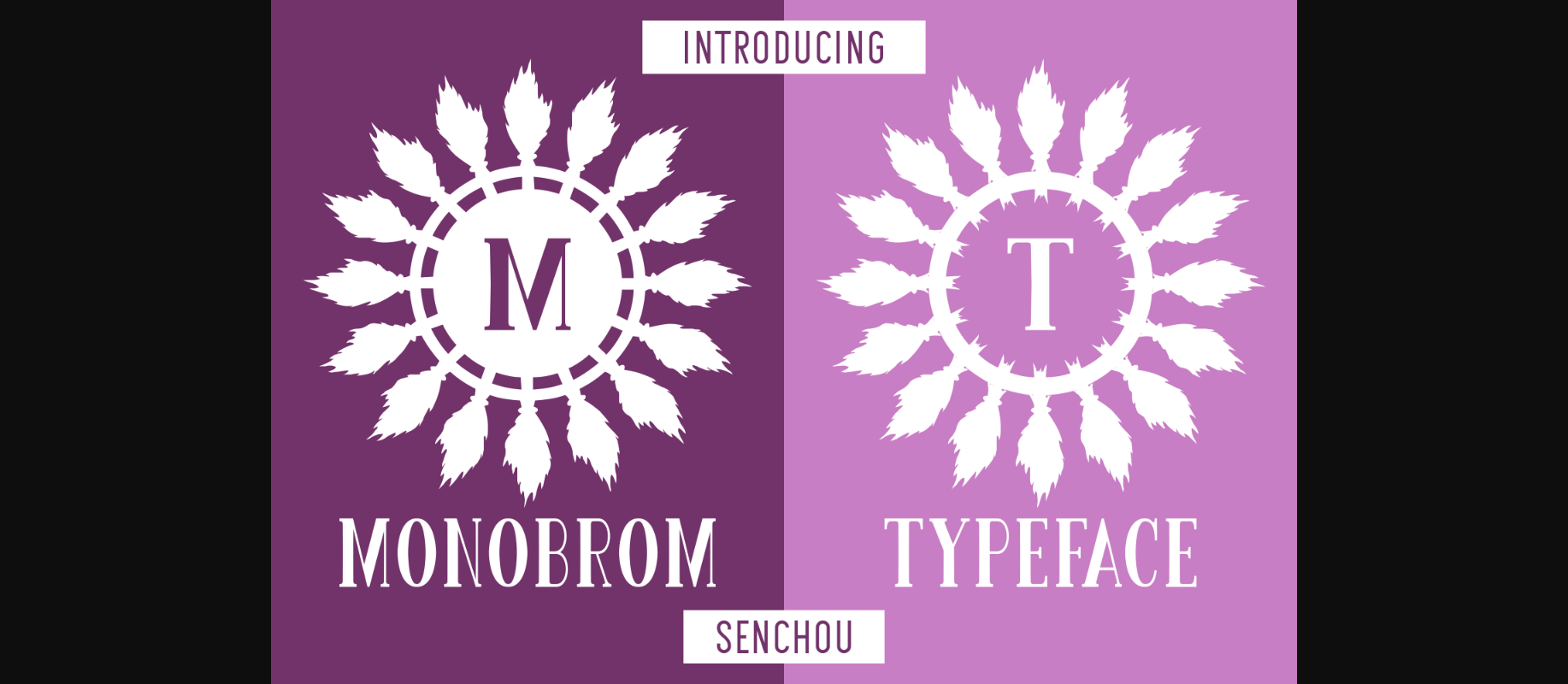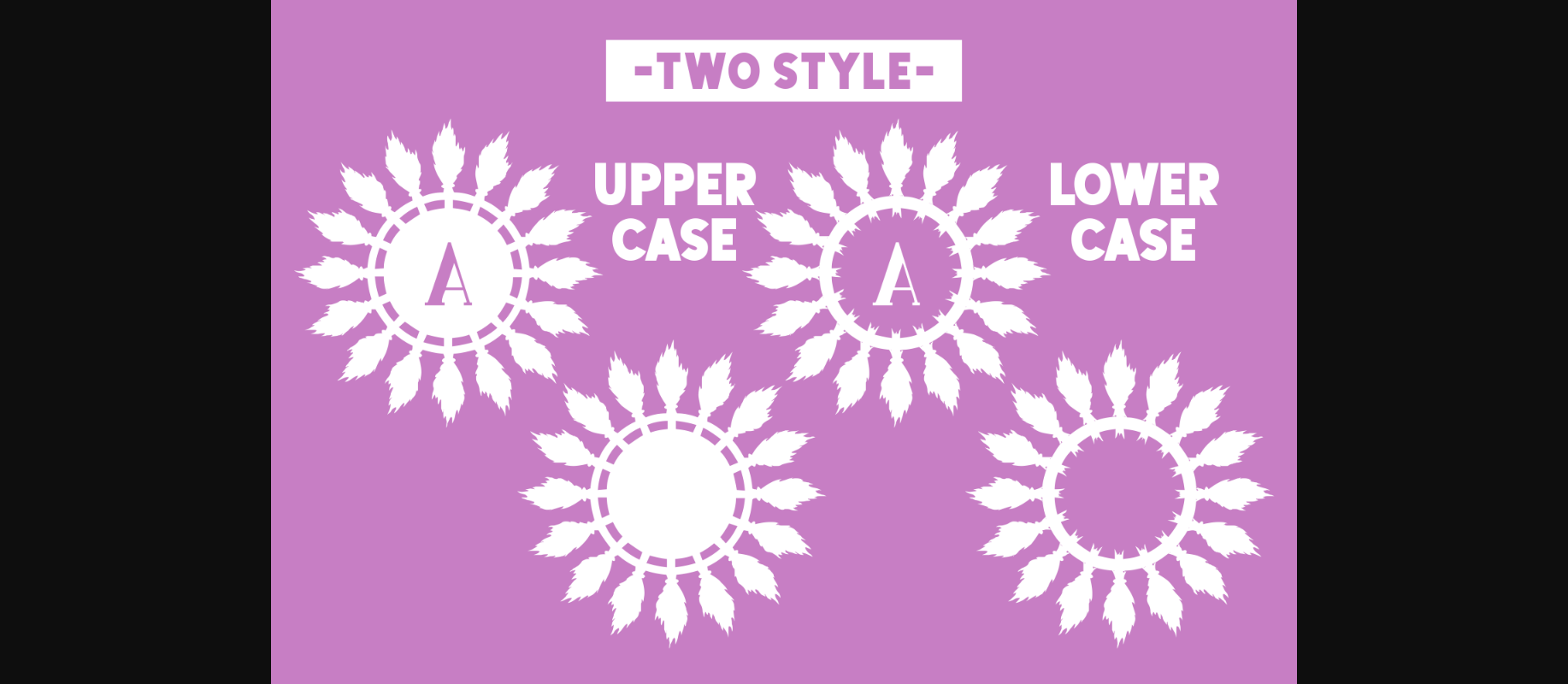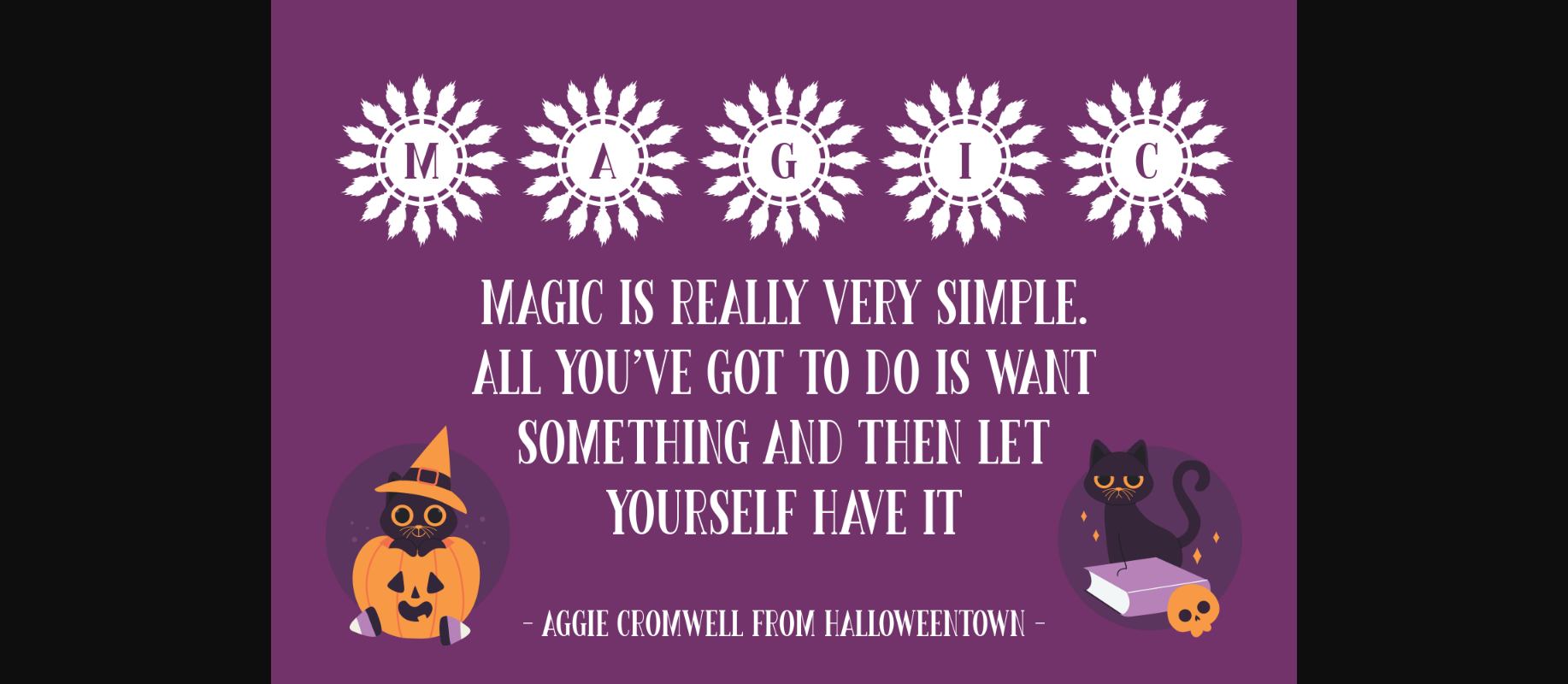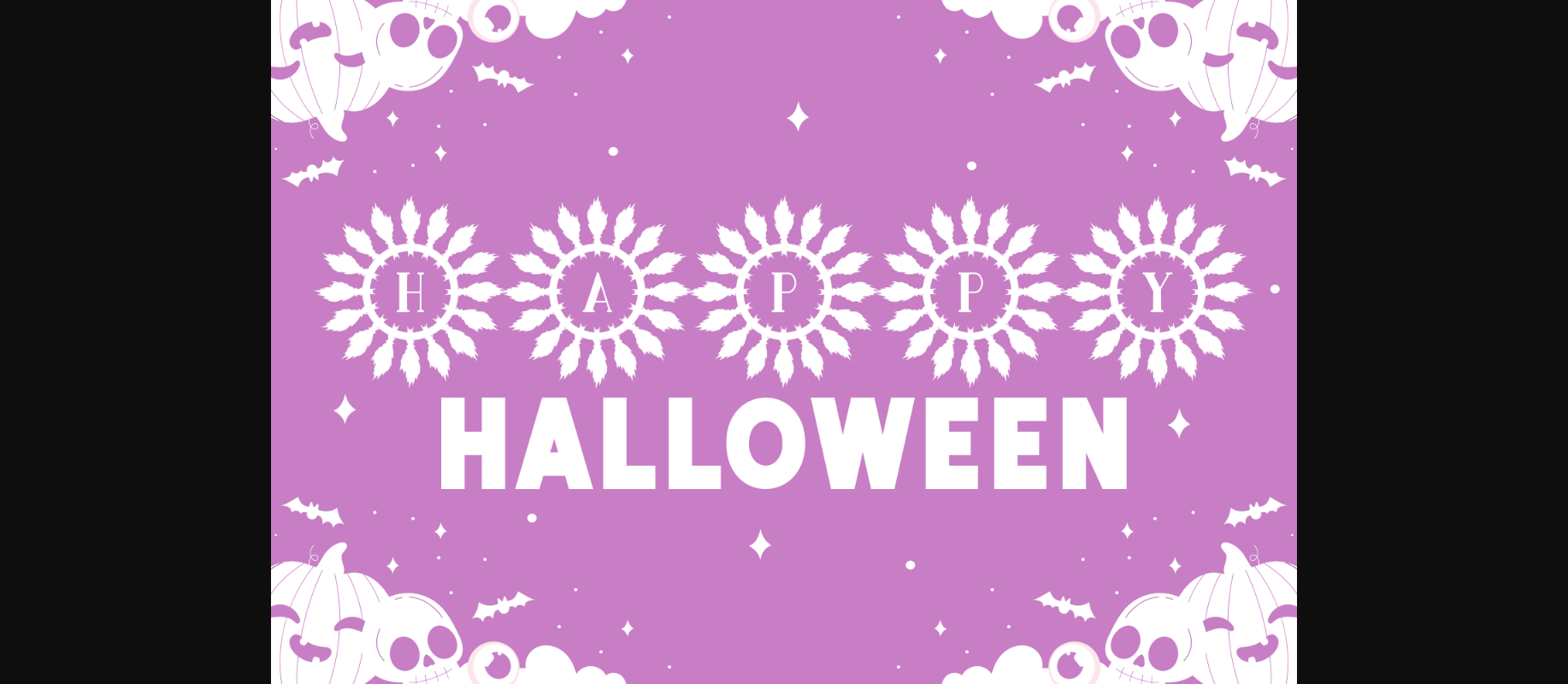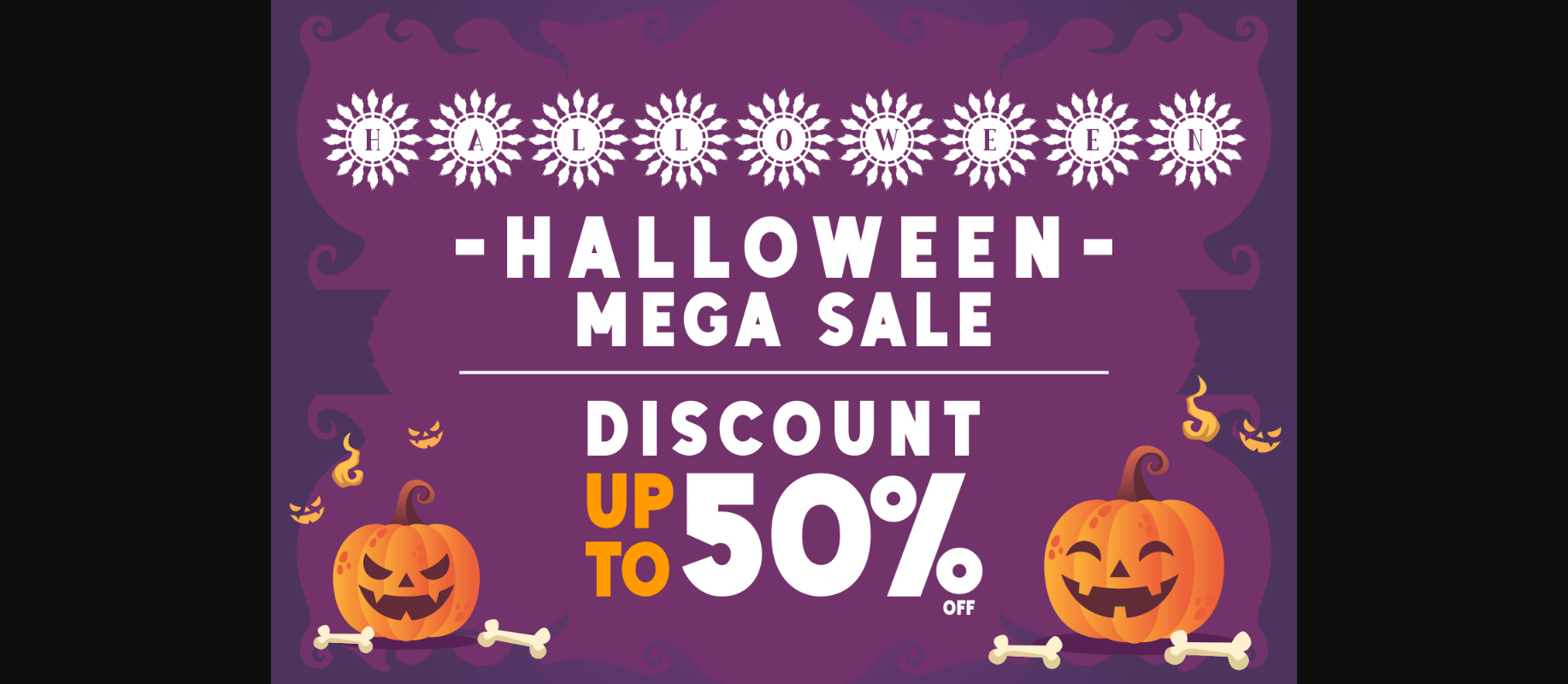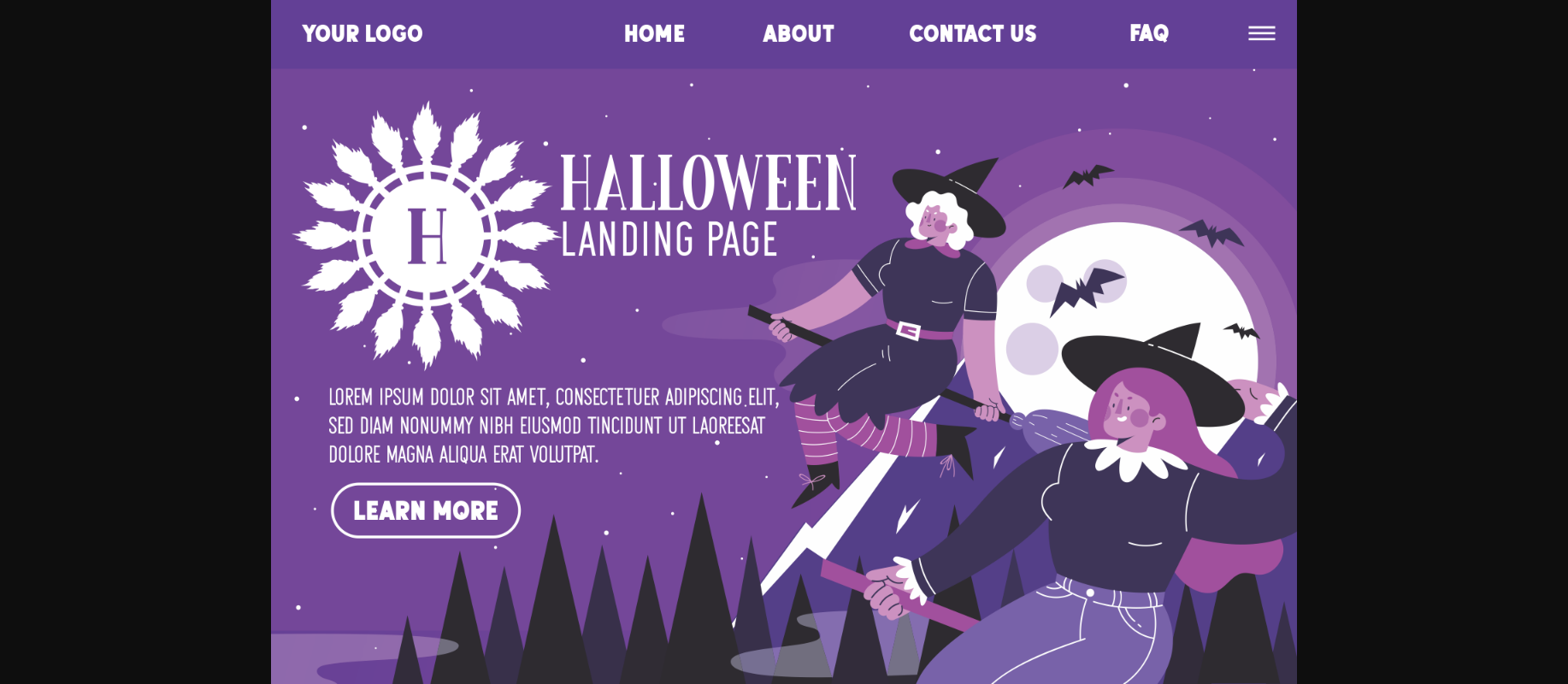
Decorative Fonts Monobrom Font 0 202 FacebookTwitterPinterestWhatsApp 1 of 8 ... Monobrom Font Poster 2... Monobrom Font Poster 3... Monobrom Font Poster 4... Monobrom Font Poster 5... Monobrom Font Poster 6... Monobrom Font Poster 7... Monobrom Font Poster 8... About Monobrom Font Monobrom is a lovely and unique decorative font. Add this romantic and lovely looking font to each of your love letters, wedding invitations or favorite design ideas, and you will be astounded by the outcome. DOWNLOAD NOW